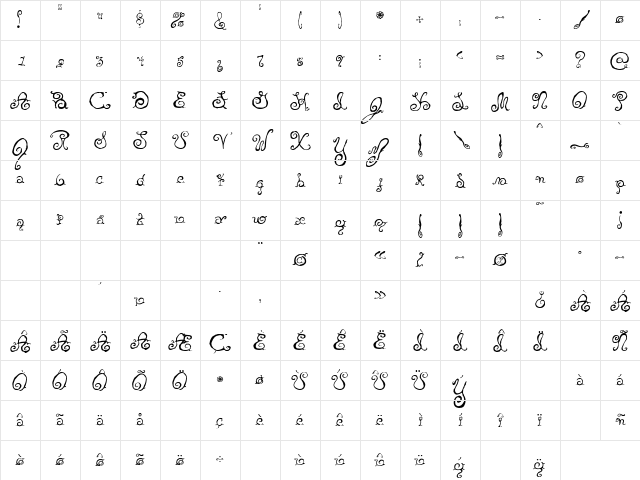
Yellow Regular Free Font
Yellow Regular
Design Context for Yellow
Yellow is a composed and adaptable typeface that performs quietly and consistently across a wide range of design contexts.